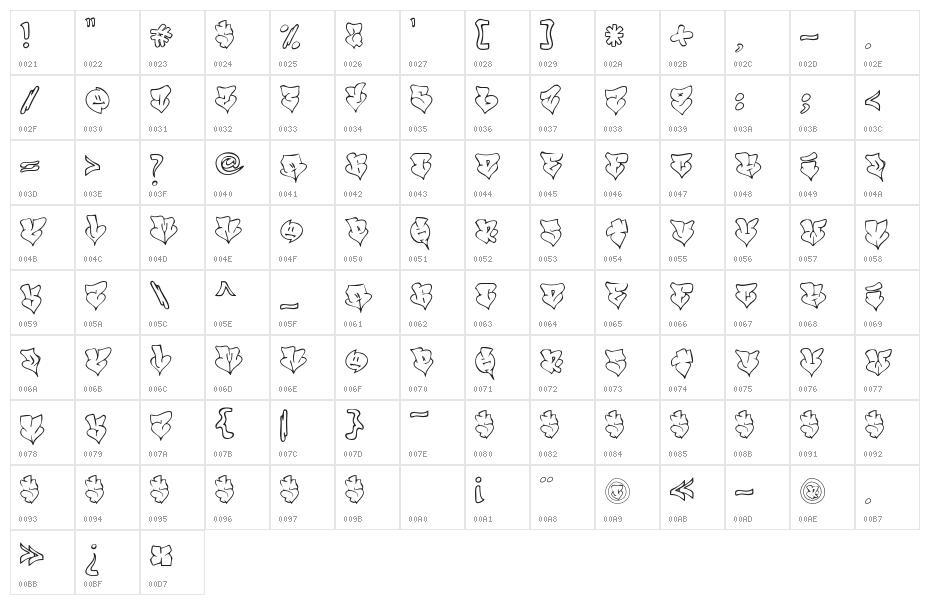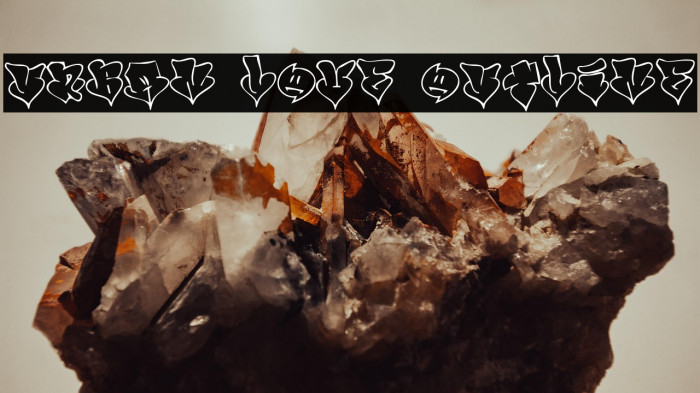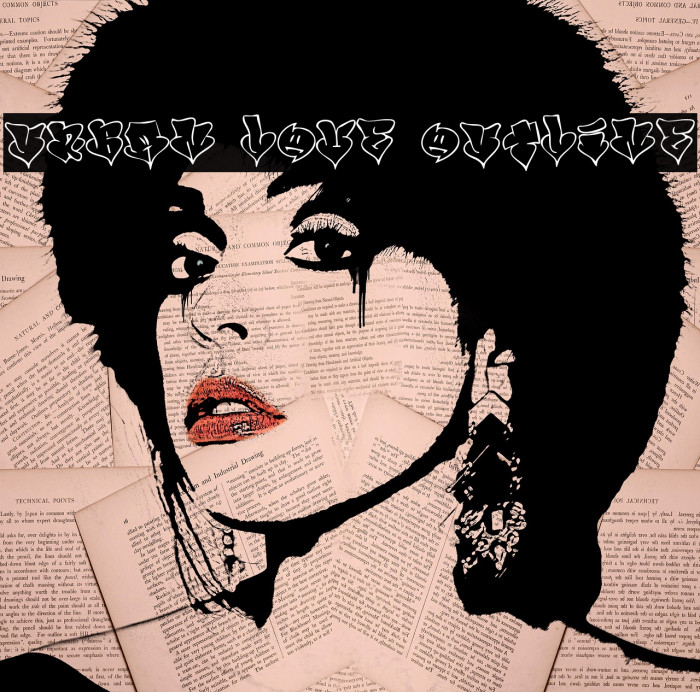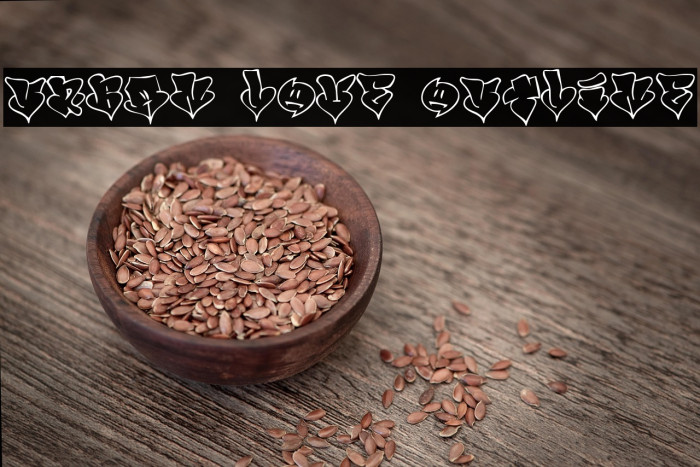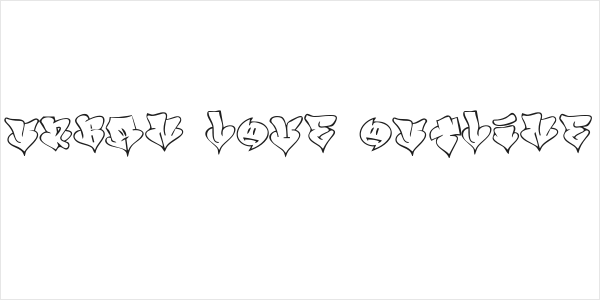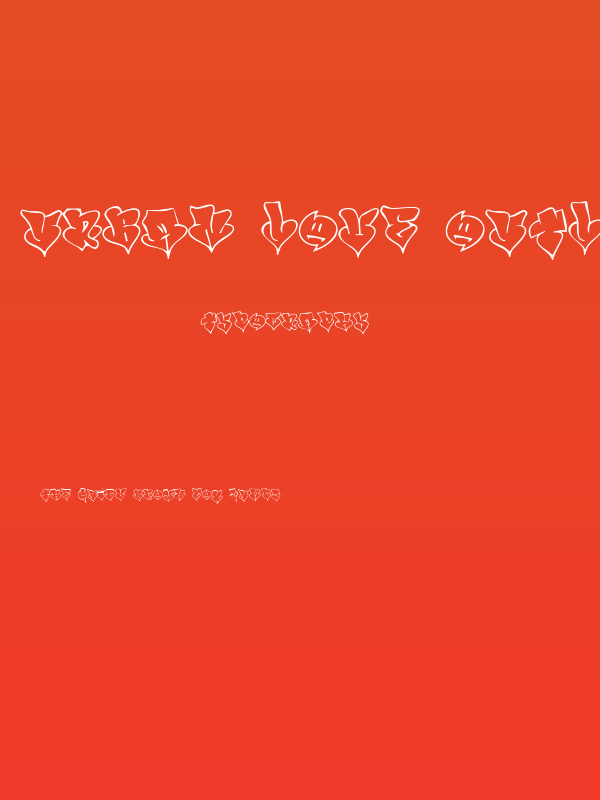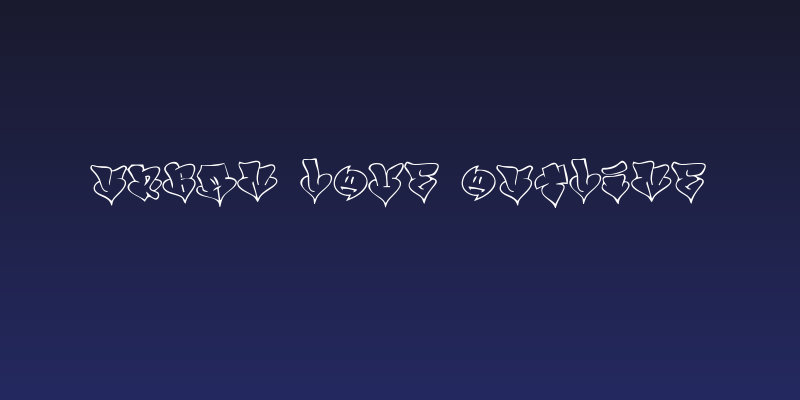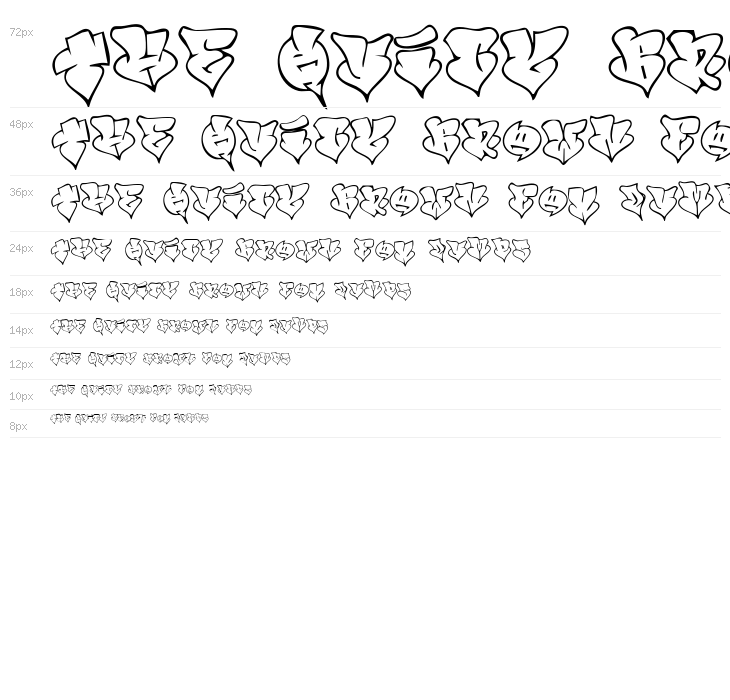
Urban Love Outline Font
Urban Love Outline Description
A graffiti-style decorative font with heart-shaped outlines and urban flair.
| Overall Style | Urban, Graffiti |
| Use Case | Logos, Posters, Headlines |
| Proposed Projects | Street art, urban-themed designs, posters. |